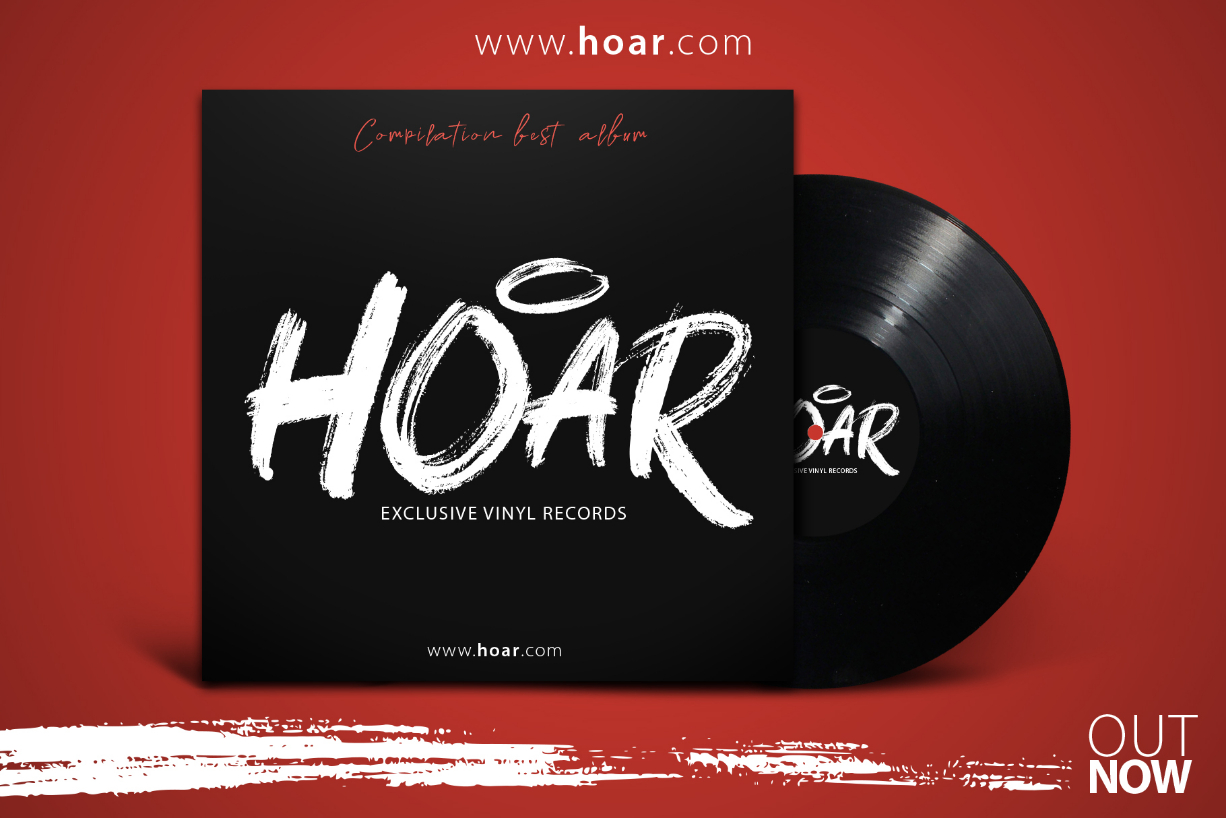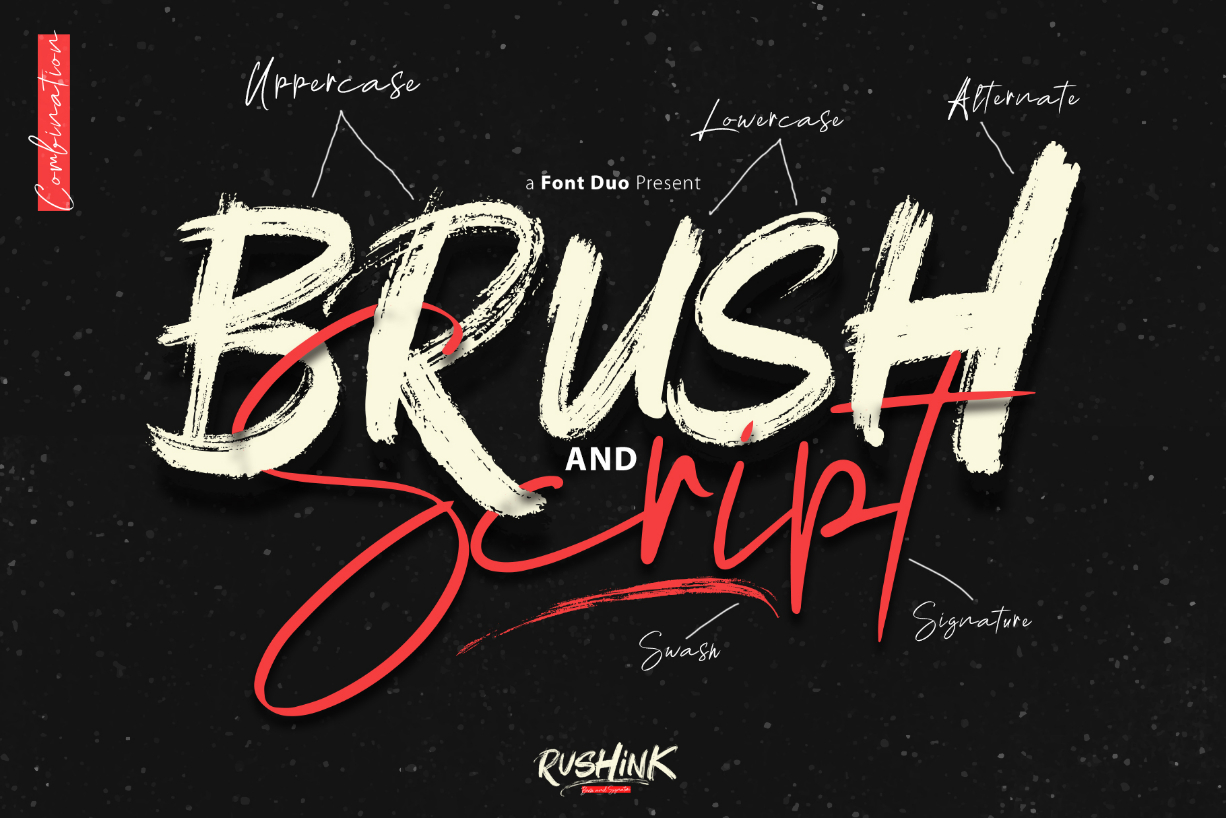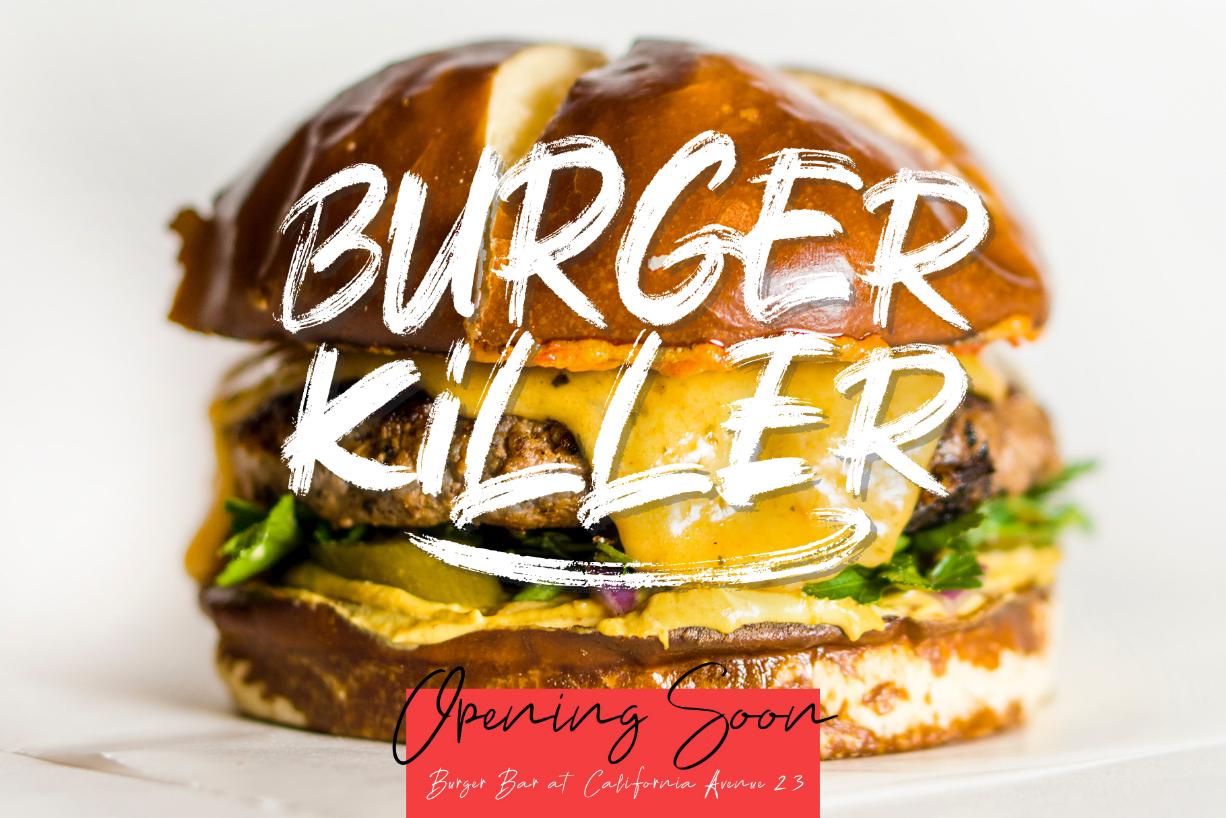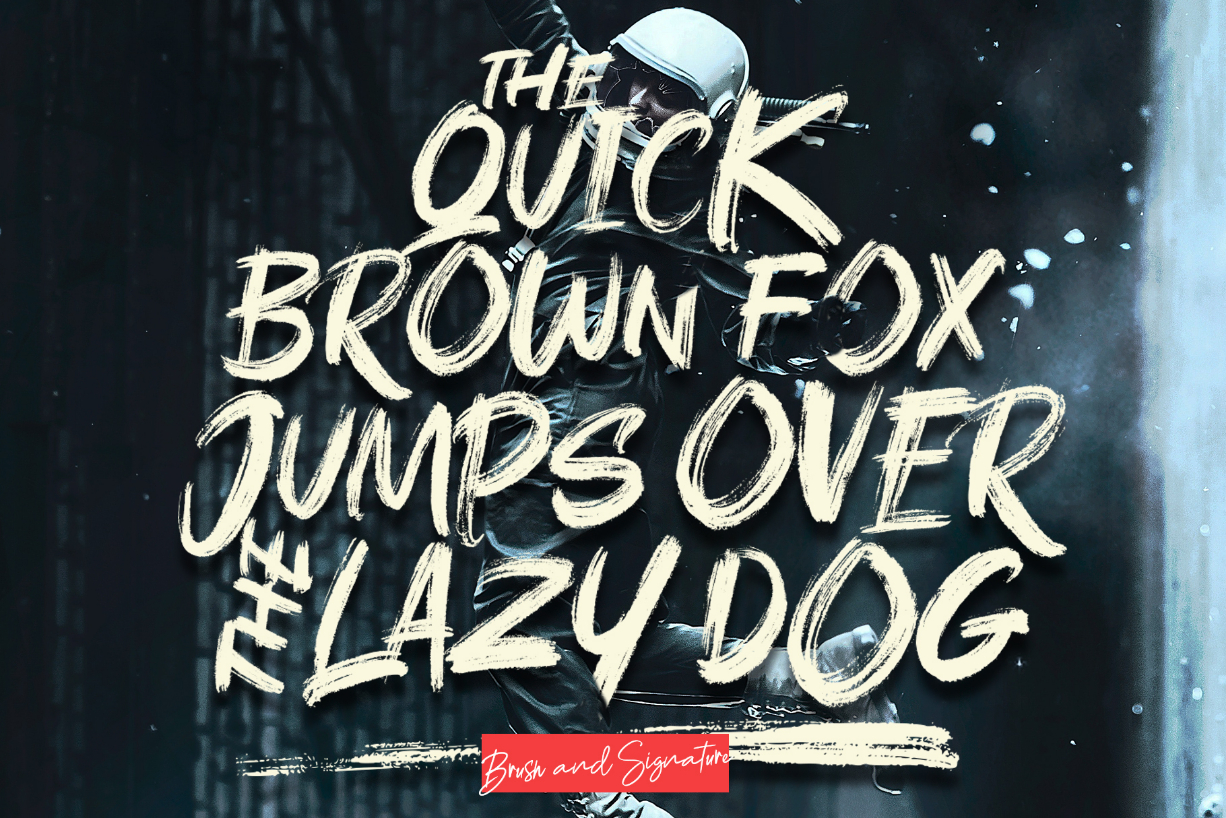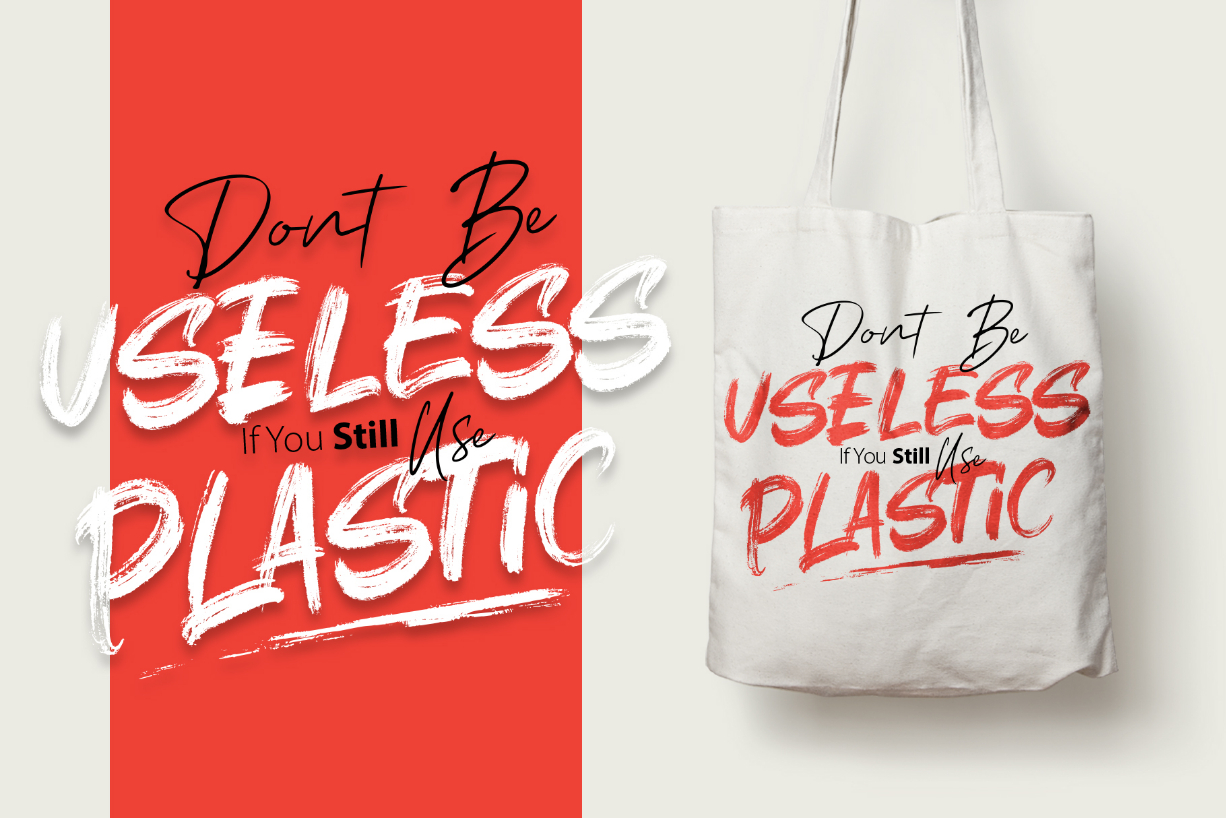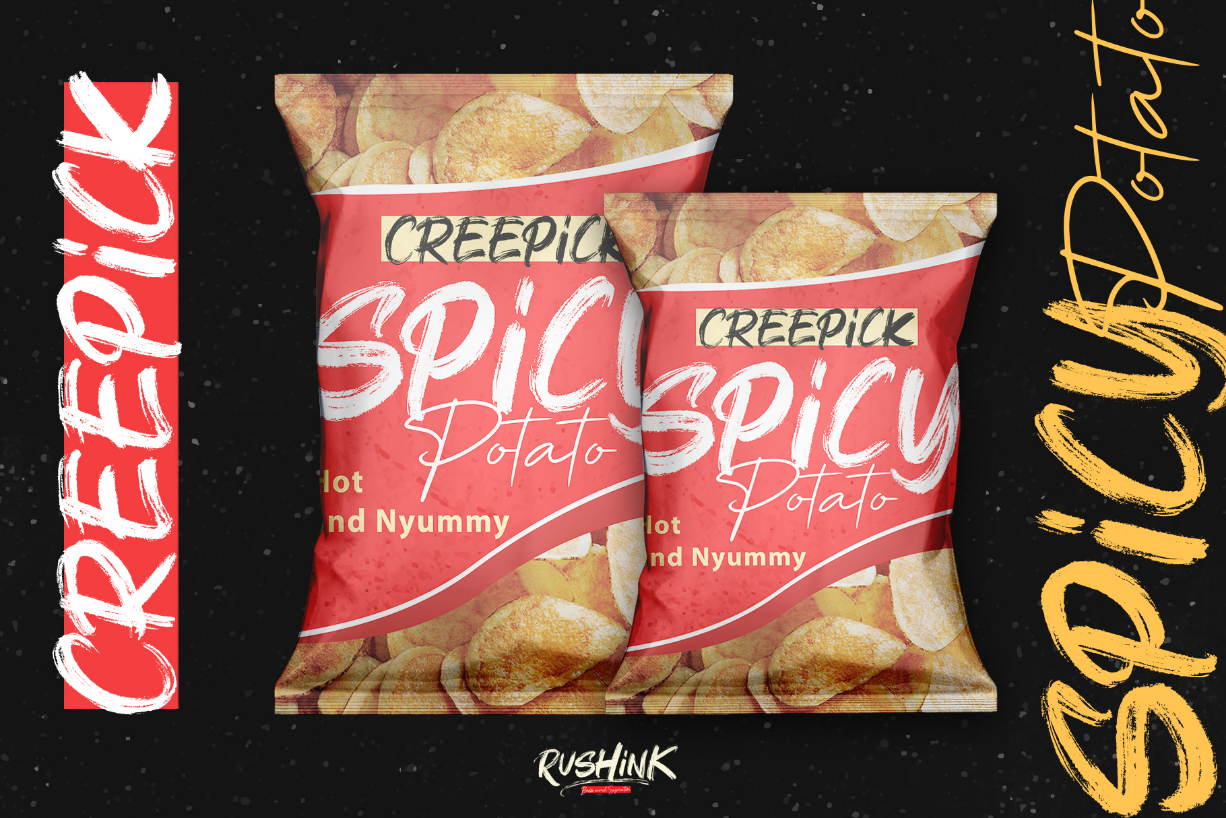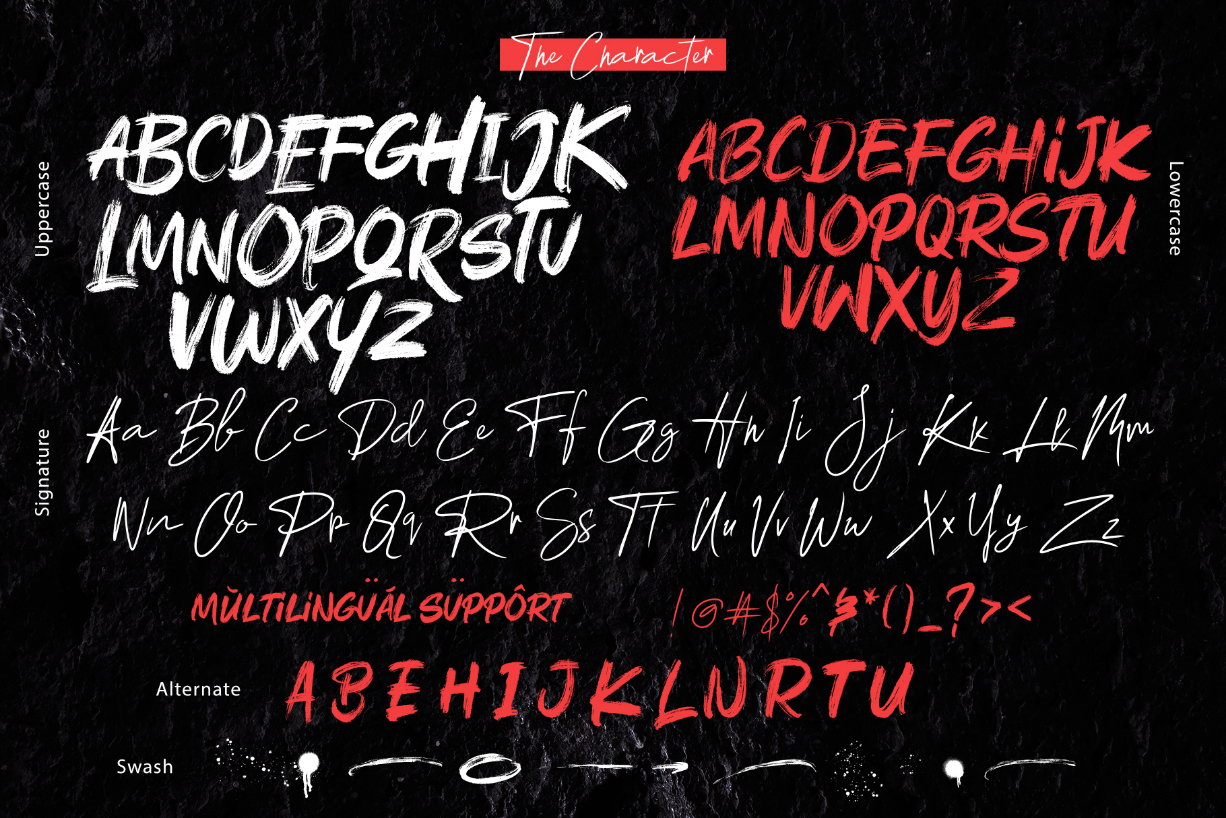
HomeBlackletter FontsRushink Duo Font Blackletter Fonts Rushink Duo Font FacebookTwitterPinterestWhatsApp 1 of 10 Rushink Duo Font Poster 2... Rushink Duo Font Poster 3... Rushink Duo Font Poster 4... Rushink Duo Font Poster 5... Rushink Duo Font Poster 6... Rushink Duo Font Poster 7... Rushink Duo Font Poster 8... Rushink Duo Font Poster 9... Rushink Duo Font Poster 10... About Rushink Duo Font Rushink is a modern font duo that brings together a bold brush font and a stunning script! DOWNLOAD NOW 120 0 People also explored Wedding Pumpkin Font Vintage Clothes Font Luciana Script 2 Font Tiramisu Font Right Side Up Font Paella Uptown Berlin Font Loong Rak Oo Font Dileto Font Amartha Font Samantha Font Jean Jingga Font TagsRushink Duo Font Previous articleGillattoz FontNext articleSlayer Creeper Font LEAVE A REPLY Cancel reply Comment: Please enter your comment! Name:* Please enter your name here Email:* You have entered an incorrect email address! Please enter your email address here Website: Save my name, email, and website in this browser for the next time I comment. Unlock Endless Creativity with the FREE September Clipart Huge Bundle (Valued at $700!) Personal Use Free Bakk Trieng Personal Use Free Read more Mini Story Personal Use Free Read more Cadosa Personal Use Free Read more Frizton Personal Use Free Read more BLOG Using Fonts in Digital Marketing: Tips to Strengthen Your Brand Identity In the realm of digital marketing, every visual element plays a crucial role in shaping a brand's identity, and fonts are no exception. The... Free Fonts Risk: Why Free Fonts Can Be Dangerous for Designers Where to Buy American Fonts Online in 2024 Top 7 Google Fonts Alternatives for Faster and Privacy-Friendly Web Design (2025)